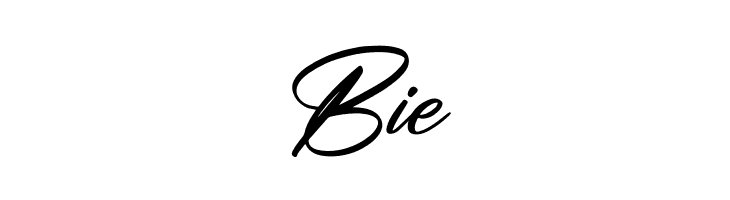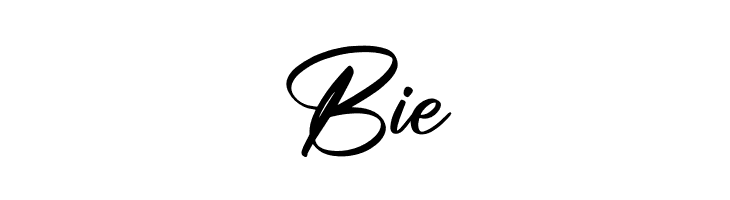
• BlackWagoonDemo
A bold, playful font with a hand-drawn, cartoonish style.
• Blade Stroke
A bold, brush script font with dynamic and expressive strokes.
• Blakestone DEMO-Regular
A bold, brush-style font with dynamic, slanted strokes and artistic flair.
• Blank Smile
A bold, expressive script font with flowing, cursive letterforms.
• Blanket Christmas
Playful handwritten script with tall, rounded forms and lively stroke contrast.
• Blankid
An elegant script font with flowing, connected strokes and a sophisticated style.
• Blanksack Immortal
A dramatic, jagged font with a gothic, horror-inspired style.
• Blankside
A dynamic handwritten font with fluid, expressive strokes and a casual, personal feel.
• BLASQER
A bold, playful font with exaggerated curves and whimsical style.
• Blasting
A playful, handwritten script font with whimsical embellishments.
• Blaze Brush
• Blink Kiss
A bold, distressed font with a hand-painted, rugged appearance.
• BlinkStones
A bold, hand-drawn font with a playful and energetic style.
• Blissfuly Magnotia DEMO VERSION
Expressive, high-contrast handwritten script with ornate uppercase and bold lowercase.
A graceful, italic script font with a handwritten, calligraphic feel.
• Block Letters _ Demo Regular
A bold, vintage-style font with distressed uppercase letters in block format.
• Block Letters Tryout
• Blocky Letters Hollow Regular
A bold, geometric font with a hollow, 3D block design.
• Blocky Letters Inverted Regular
A bold, three-dimensional block font with a modern, futuristic style.
• Blocky Letters Regular
A bold, geometric font with a 3D blocky effect and angular design.
• Blocky_Letters
A playful, hand-drawn font with bold, irregular strokes and a whimsical style.
• Blodders
A bold, expressive handwritten font with thick strokes and dynamic shapes.